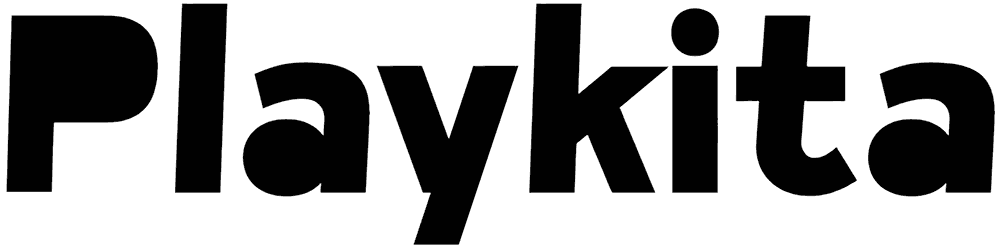
Playkita Font
No way you’re gonna leave here without downloading Playkita. We’re going to make sure of that by pointing out how funny it looks and how much its lively characters can help ease the process of you befriending your audience. Isn’t that the dream?
Your magazine covers for kids, the cool printed illustrations on clothes, birthday posters, and playground signs, these are all just a few very limited examples of why you need this kindergarten font in your different projects so much.